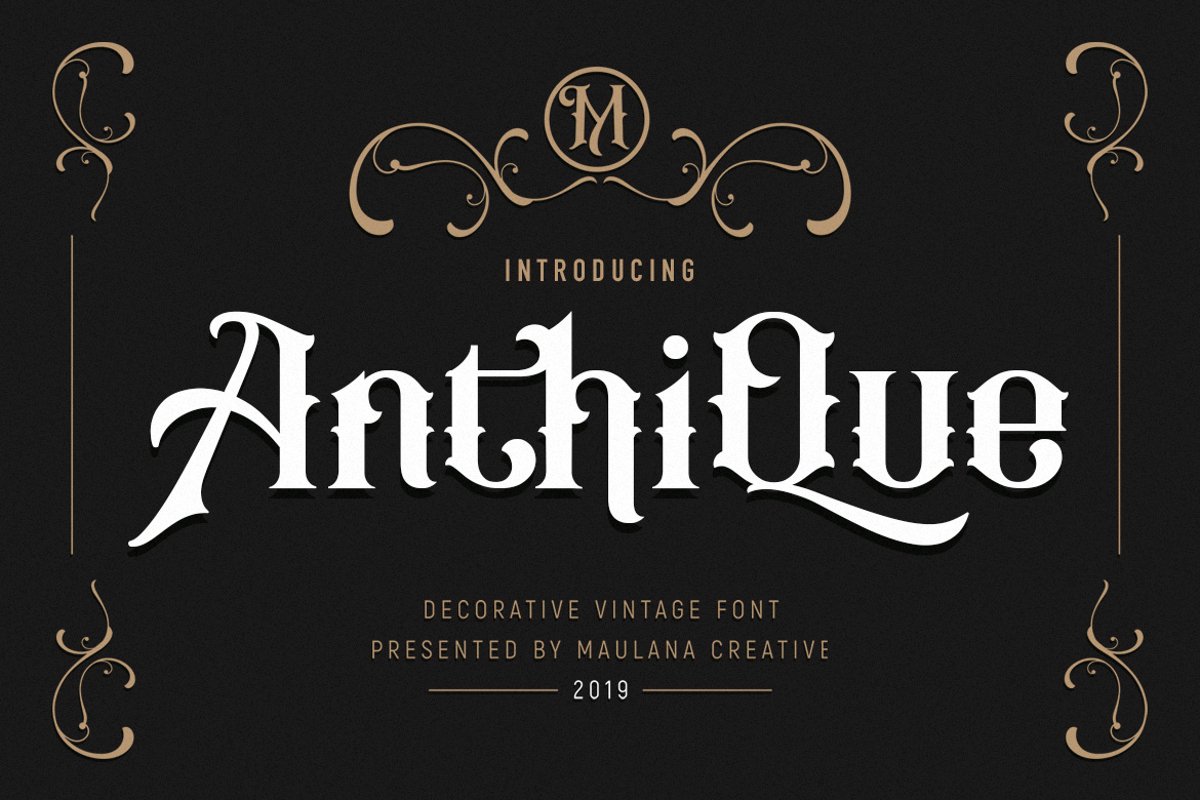
Anthique - Vintage Typeface
Introducing **Anthique - Vintage Typeface**
Anthique is a handmade Victorian handlettering, which is combining modern and classic typography with some awesome alternates. Yes we back to early 1800s, bring classic touch on this decade.
- Ligature